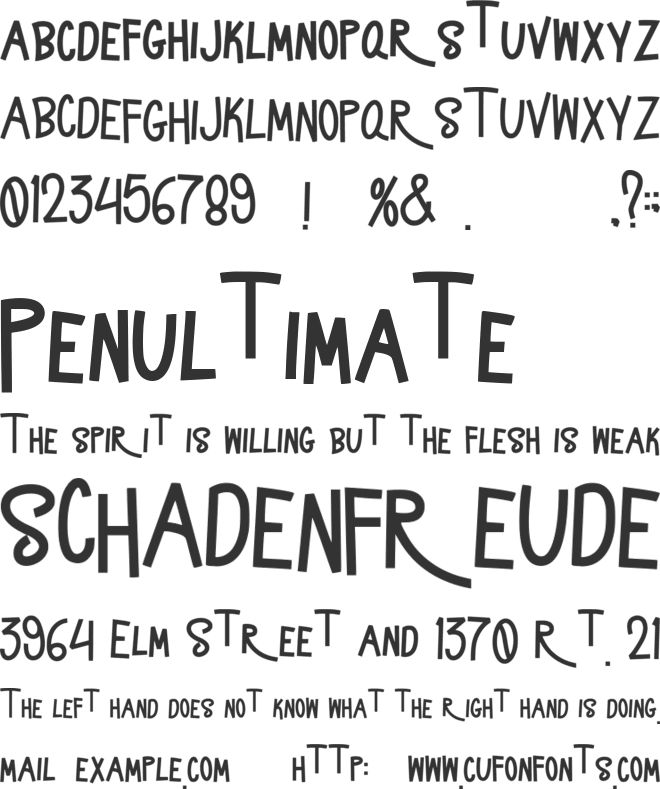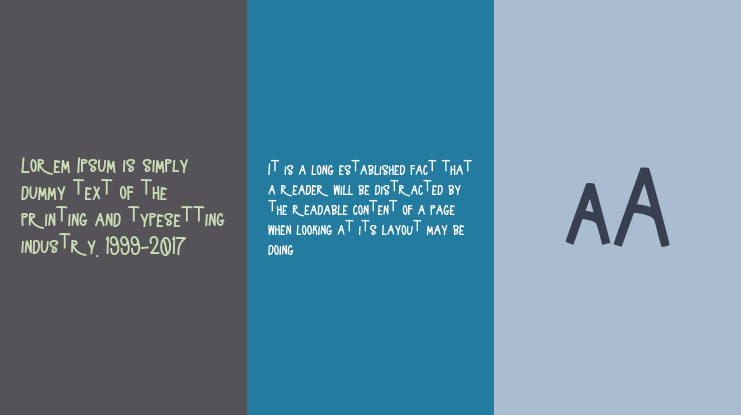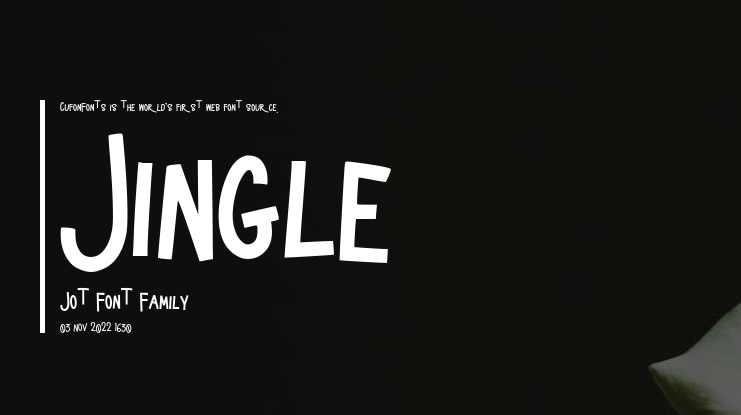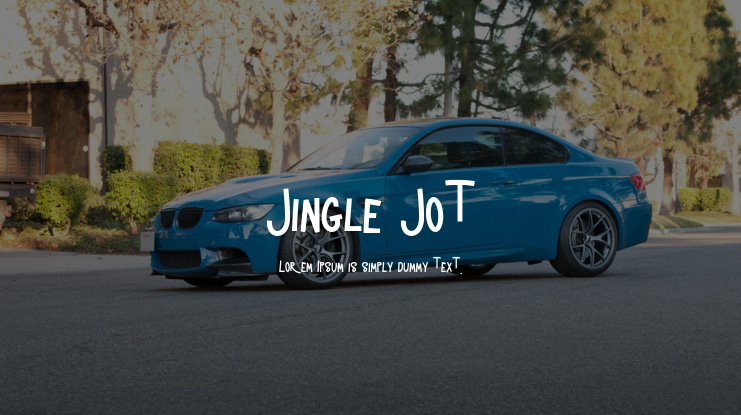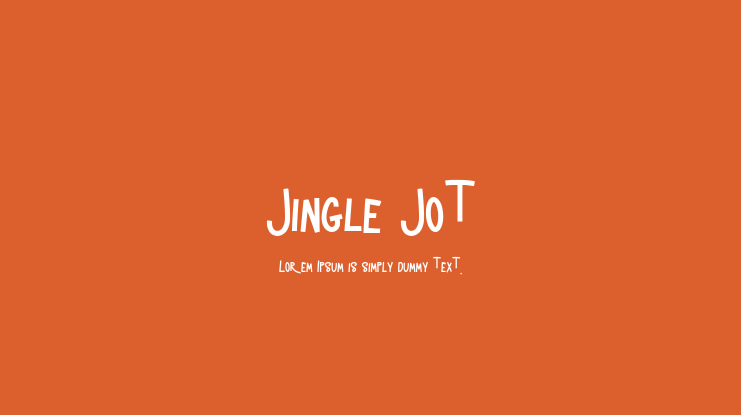
Jingle Jot Font
Meet Jinge Jot: An Exciting Display Font for Endless Adventures
Prepare to embark on a delightful journey with Jinge Jot, the ultimate display font crafted to bring a sense of fun to your projects. With its vibrant and energetic appearance, Jinge Jot is the perfect choice for game interfaces, playful branding, and more.
Combining bubbly curves and quirky angles, each letter in Jinge Jot radiates cheerfulness and spontaneity. Its playful design invites users to interact with its dynamic charm.
Whether you're working on a vibrant game title screen or creating eye-catching signage, Jinge Jot effortlessly infuses whimsical elements into any project. Let your creativity soar as you explore the endless design possibilities this delightful font offers.
Why settle for the ordinary when you can enhance your creations with Jinge Jot? Unleash your imagination and infuse your work with unlimited energy and joy, all thanks to this captivating display font.